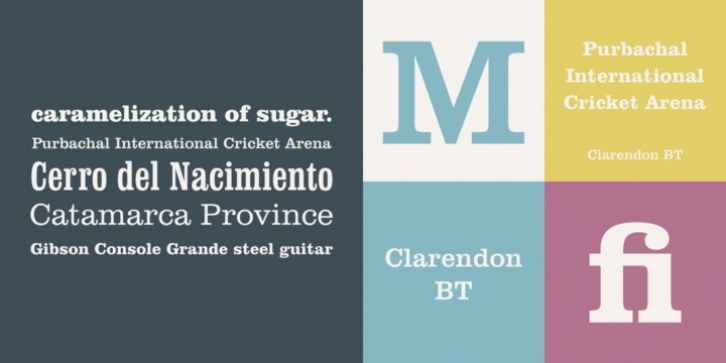
The classical Clarendon form originating in England in 1845 as polished by Edouard Hoffmann and Hermann Eidenbenz at Haas a little over a century later. Haas’ revival of this typeface in 1953 precipitated the revivals that follow.